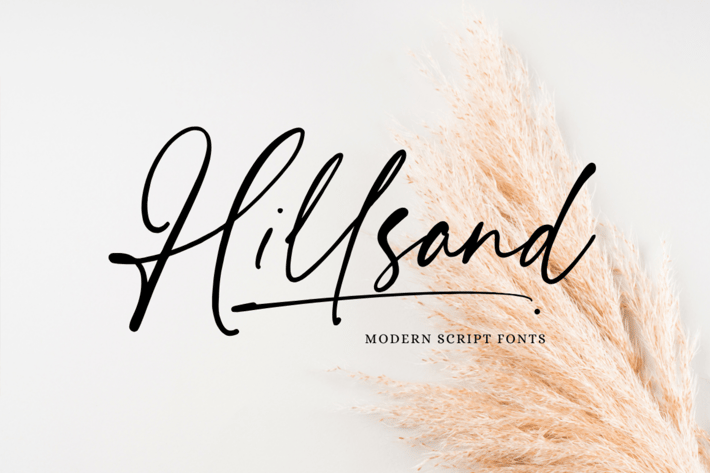
Hillsand - Signature Font
Introducing Hillsand, a signature script font that effortlessly blends natural elegance with personal flair. With its flowing strokes and organic feel, this font mimics the authenticity of a handwritten signature.